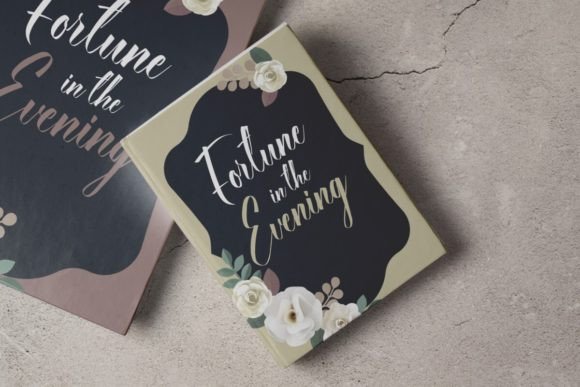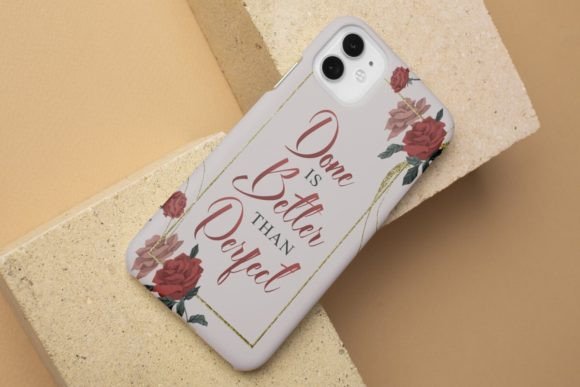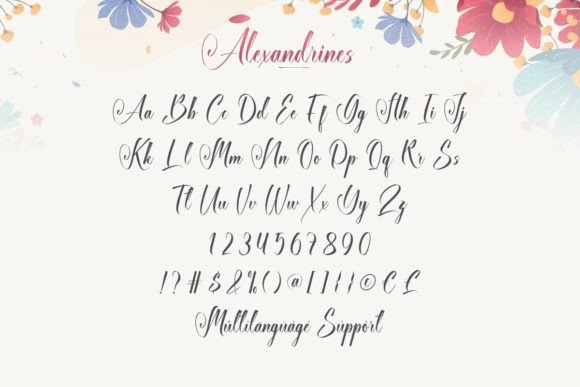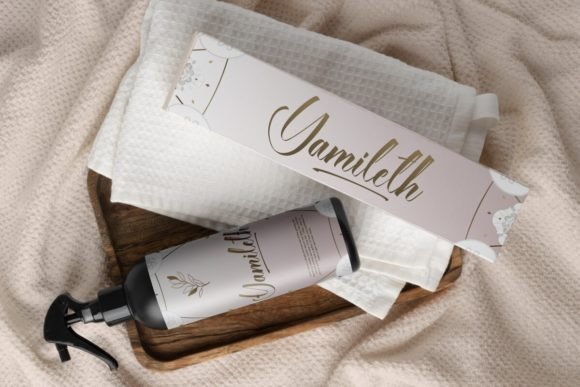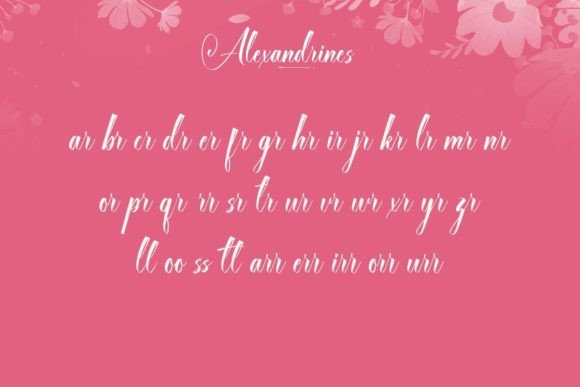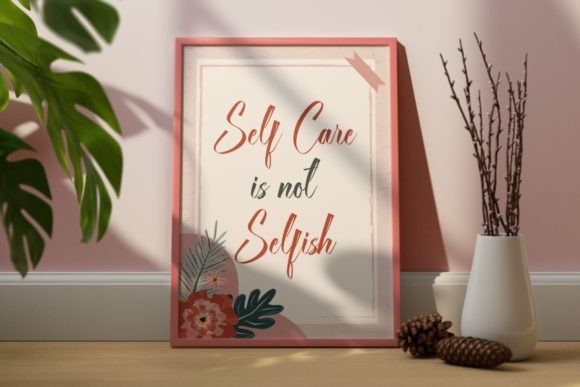
Introducing Alexandrines Font: Elevate Your Designs with Elegance and Sophistication
In the world of typography, a well-crafted font can make all the difference in elevating your designs from ordinary to extraordinary. If you’re a designer or crafter looking for a stylish and luxurious touch, look no further than Alexandrines Font. This stunning handwriting calligraphy font is designed to bring a sense of elegance and sophistication to any project, making it perfect for a wide range of industries and applications.
What Makes Alexandrines Font So Special?
Alexandrines Font is a beautifully crafted font that boasts a range of features that set it apart from other fonts. Here are just a few reasons why this font is a must-have for designers and crafters:
- Stylish Handwriting Calligraphy: Alexandrines Font features a gorgeous handwriting calligraphy style that exudes luxury and sophistication.
- Easy to Read: Despite its elegant appearance, Alexandrines Font is perfectly crafted to be easy to read, making it suitable for a wide range of applications.
- Comprehensive Character Set: This font comes with a full set of uppercase and lowercase basic characters, numbers, a large range of punctuation and symbols, as well as ligatures and swooshes.
- Well-Spaced and Kerning: The character set is perfectly managed with well-spaced and kerning, ensuring that your text looks beautiful and professional.
Perfect for a Wide Range of Industries
Whether you’re working on a project for a high-end boutique, a luxury hotel, or a bespoke wedding invitation, Alexandrines Font is the perfect choice. Its elegant and sophisticated style makes it suitable for any industry that requires a touch of luxury, including:
- Accessories
- Boutiques
- Cosmetics
- Furniture
- Hotels
- Photography
- Restaurants
- Spa Salons
- Wedding Organizers
- Writers
Alexandrines Font is incredibly versatile, making it perfect for a wide range of design projects, including:
- Art frames
- Brand logos
- Custom case phones
- Headlines
- Labels
- Magazine catalogs
- Packaging design
- Screen printing
- Stationery
- Template menus
Why Choose Alexandrines Font?
With so many fonts on the market, why choose Alexandrines Font? Here are just a few reasons why this font stands out:
- Unique and Elegant Style: Alexandrines Font features a unique and elegant style that will set your designs apart from the crowd.
- High-Quality Craftsmanship: This font is carefully crafted to ensure that it meets the highest standards of quality and professionalism.
In conclusion, Alexandrines Font is a must-have for designers and crafters looking to add a touch of luxury and sophistication to their projects. With its elegant handwriting calligraphy style, comprehensive character set, and well-spaced and kerning, this font is perfect for a wide range of industries and applications. Whether you’re working on a high-end boutique or a bespoke wedding invitation, Alexandrines Font is the perfect choice.